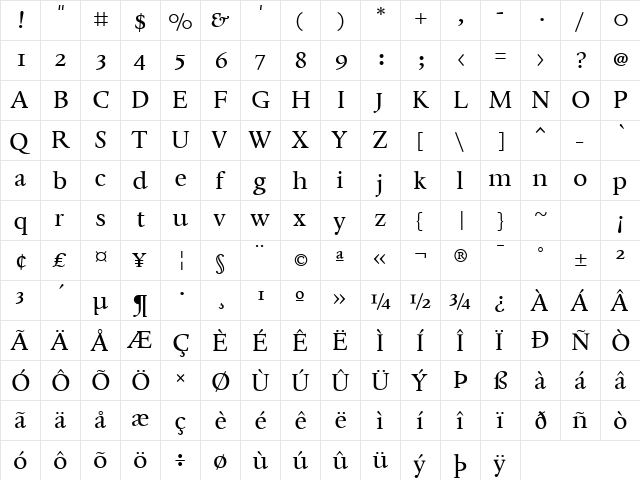
Whitenights LT Std Regular Regular
| Foundry | Linotype Library GmbH |
| Designer | Lars Berquist |
Design Context for Whitenights LT Std Regular Typeface
Whitenights LT Std Regular is a composed and adaptable typeface that performs quietly and consistently across a wide range of design contexts. The delicate stroke weight brings airiness and refinement to layouts.